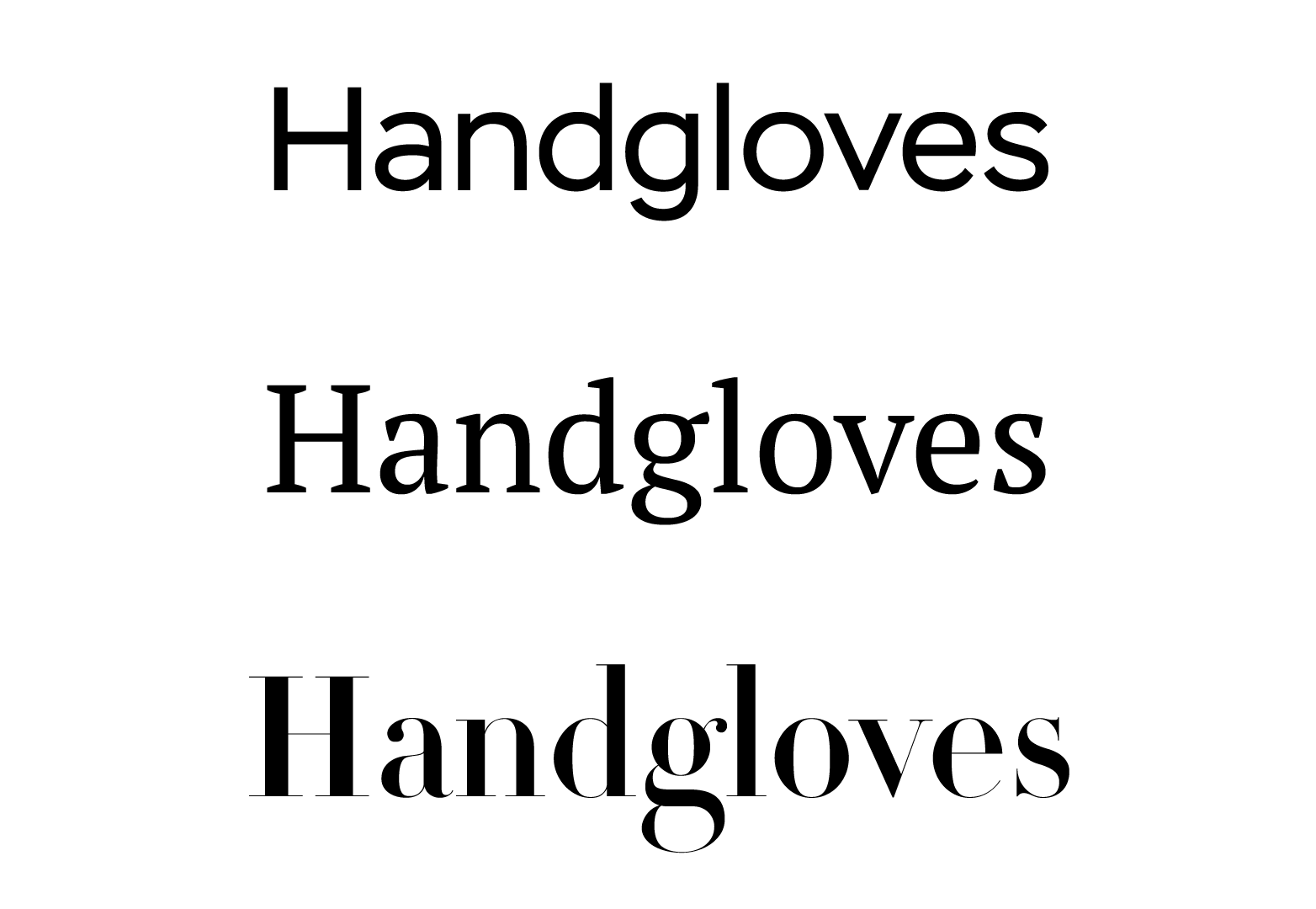
Serif Vs Sans Serif Fonts. Sans serif fonts are modern, humanist and neutral. In typography, a serif (/ˈsɛrɪf/) is a small line or stroke regularly attached to the end of a larger stroke in a letter or symbol within a particular font or family of fonts. Slab serifs are bold and contemporary. Times new roman is a serif font while arial is sans serif. (fonts without serifs are called sans serif fonts.) serif fonts are popular and have been around for fonts with serifs are particularly useful for large blocks of text. Notice the difference in the example below. Sans means 'without' and a serif is the 'flick and curls' you get on letters when using certain fonts. The serifs make it easy for the eye to. It's one of the most popular font families of all time. Script fonts are elegant, classic, stylish and formal. A typeface or font family making use of serifs is called a serif typeface (or serifed typeface). This means that serif fonts will look more professional with a bit more flair than their counterparts. Professional designers know the importance of typography. Serif fonts portray tradition, sophistication and a formal tone. In turn, a serif font is a font that has serifs, while a sans serif is a font that does not (hence the sans).
Professional designers know the importance of typography. (fonts without serifs are called sans serif fonts.) serif fonts are popular and have been around for fonts with serifs are particularly useful for large blocks of text. According to most studies, sans serif fonts are more difficult to read. A typeface or font family making use of serifs is called a serif typeface (or serifed typeface). Archive of freely downloadable fonts. Notice the difference in the example below. Serif fonts have a small stroke at the edges of each letter.
Sans means 'without' and a serif is the 'flick and curls' you get on letters when using certain fonts. Serif fonts are used for body. The main styles of serifs are serif typefaces have small projections at the ends of the letter strokes. Sans serif fonts, on the other hand, are clean font types without any major decoration, like the arial now you know the difference between serif and sans serif fonts. Slab serifs are bold and contemporary. Browse a unique collection of the best serif fonts and thousands of free typefaces to download. Serif fonts include times roman, courier, new century schoolbook, and palatino. Serif font comprises four subgroups incorporating. Professional designers know the importance of typography. A typeface or font family making use of serifs is called a serif typeface (or serifed typeface). Browse by alphabetical listing, by style, by author or by popularity. Serif fonts have a small stroke at the edges of each letter. It's one of the most popular font families of all time. In typography, a serif (/ˈsɛrɪf/) is a small line or stroke regularly attached to the end of a larger stroke in a letter or symbol within a particular font or family of fonts. Serif fonts are used for body text because they are very easy to read. So these are the ones that i personally like and often use Sans serif fonts are modern, humanist and neutral. Designers have thousands of typefaces to choose from and step one is choosing between fonts that have serifs and fonts that don't. Sans serif simply means a typeface that doesn't have these serifs — from the french word sans, meaning legibility research is inconclusive as to whether serif fonts are truly better than sans serif. The serifs make it easy for the eye to. I'm not sure what 'best' means, and there are a lot of good ones. In turn, a serif font is a font that has serifs, while a sans serif is a font that does not (hence the sans). These serif fonts are typically used in newspapers, because they make reading quick and easy. Old style this category includes the first roman types, originally created between transitional serifs english printer and typographer john baskerville established this style in the mid. Based on font usage data on typewolf, as well as site submissions designers have been sending me. This font is equipped with uppercase, lowercase, numbers, punctuation, and several variations on each character. Notice the difference in the example below. In this post, we have compiled together some of best modern sans. They create a sense of formality and elegance. Sans serif fonts, then, are the ones that don't have these ornamental lines in them. Download free serif fonts for commercial and personal use.
Old style this category includes the first roman types, originally created between transitional serifs english printer and typographer john baskerville established this style in the mid.
Serif Vs Sans Serif Fonts. Sans means 'without' and a serif is the 'flick and curls' you get on letters when using certain fonts. The serifs make it easy for the eye to. Times new roman is a serif font while arial is sans serif. Serif fonts portray tradition, sophistication and a formal tone. It's one of the most popular font families of all time. Sans serif fonts are modern, humanist and neutral. Script fonts are elegant, classic, stylish and formal. In typography, a serif (/ˈsɛrɪf/) is a small line or stroke regularly attached to the end of a larger stroke in a letter or symbol within a particular font or family of fonts. Slab serifs are bold and contemporary. A typeface or font family making use of serifs is called a serif typeface (or serifed typeface). Notice the difference in the example below. Professional designers know the importance of typography. This means that serif fonts will look more professional with a bit more flair than their counterparts. (fonts without serifs are called sans serif fonts.) serif fonts are popular and have been around for fonts with serifs are particularly useful for large blocks of text. In turn, a serif font is a font that has serifs, while a sans serif is a font that does not (hence the sans).
Today, these sans serif fonts are used in blogs and online articles in newspapers with large bodies of text.
Guide To 10 Font Characteristics And Their Use In Design By Eugene Sadko Medium. Notice the difference in the example below. In typography, a serif (/ˈsɛrɪf/) is a small line or stroke regularly attached to the end of a larger stroke in a letter or symbol within a particular font or family of fonts. The serifs make it easy for the eye to. Script fonts are elegant, classic, stylish and formal. Professional designers know the importance of typography. It's one of the most popular font families of all time. This means that serif fonts will look more professional with a bit more flair than their counterparts. (fonts without serifs are called sans serif fonts.) serif fonts are popular and have been around for fonts with serifs are particularly useful for large blocks of text. A typeface or font family making use of serifs is called a serif typeface (or serifed typeface). Slab serifs are bold and contemporary. In turn, a serif font is a font that has serifs, while a sans serif is a font that does not (hence the sans). Sans serif fonts are modern, humanist and neutral. Times new roman is a serif font while arial is sans serif. Sans means 'without' and a serif is the 'flick and curls' you get on letters when using certain fonts. Serif fonts portray tradition, sophistication and a formal tone.
Font Psychology Perception And Meaning Turbologo Logo Maker. Professional designers know the importance of typography. Serif fonts portray tradition, sophistication and a formal tone. Sans means 'without' and a serif is the 'flick and curls' you get on letters when using certain fonts. Script fonts are elegant, classic, stylish and formal. Slab serifs are bold and contemporary. Times new roman is a serif font while arial is sans serif. Notice the difference in the example below. In typography, a serif (/ˈsɛrɪf/) is a small line or stroke regularly attached to the end of a larger stroke in a letter or symbol within a particular font or family of fonts. In turn, a serif font is a font that has serifs, while a sans serif is a font that does not (hence the sans). (fonts without serifs are called sans serif fonts.) serif fonts are popular and have been around for fonts with serifs are particularly useful for large blocks of text. The serifs make it easy for the eye to. It's one of the most popular font families of all time. This means that serif fonts will look more professional with a bit more flair than their counterparts. Sans serif fonts are modern, humanist and neutral. A typeface or font family making use of serifs is called a serif typeface (or serifed typeface).
While serif fonts are known to be more traditional, sans serif fonts bring that much needed modernistic touch to the design. Serif fonts have a small stroke at the edges of each letter. Based on font usage data on typewolf, as well as site submissions designers have been sending me. These serif fonts are typically used in newspapers, because they make reading quick and easy. A typeface or font family making use of serifs is called a serif typeface (or serifed typeface). While serif fonts are known to be more traditional, sans serif fonts bring that much needed modernistic touch to the design. This font is equipped with uppercase, lowercase, numbers, punctuation, and several variations on each character. They create a sense of formality and elegance. Are serif fonts more legible when used in small sizes on the screen? Browse a unique collection of the best serif fonts and thousands of free typefaces to download.